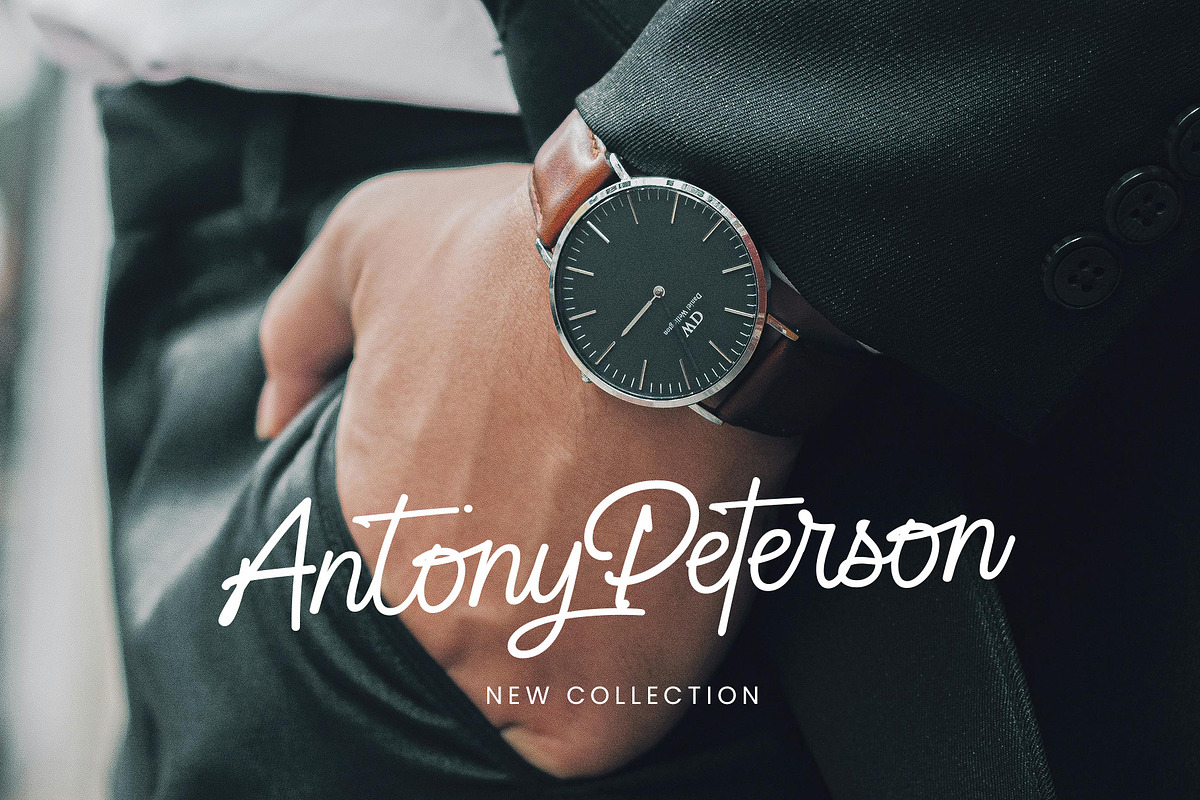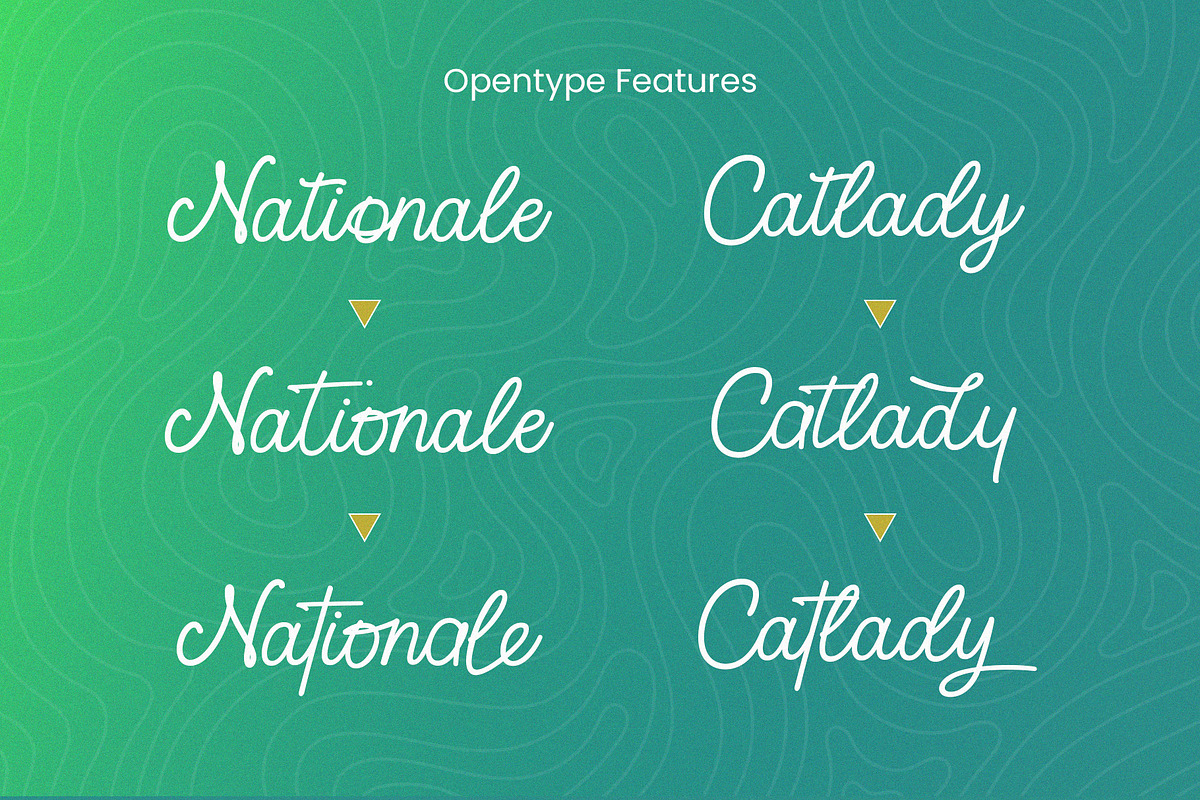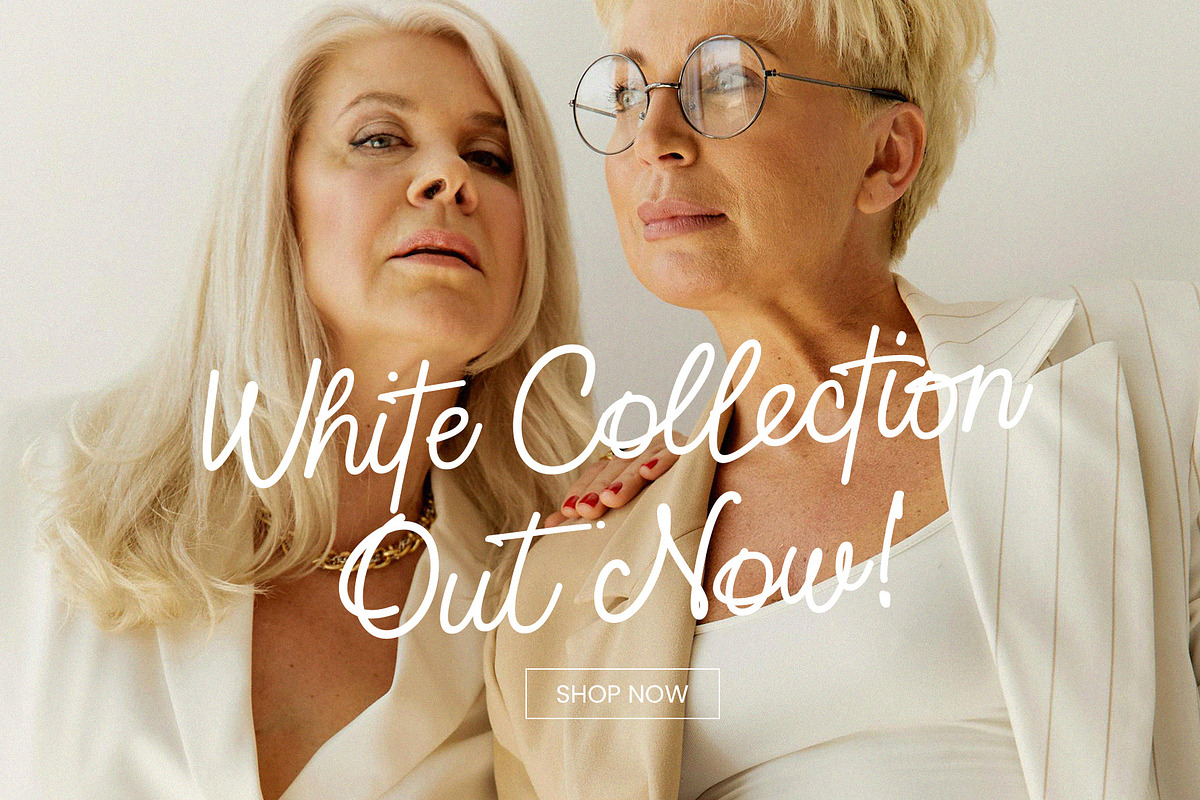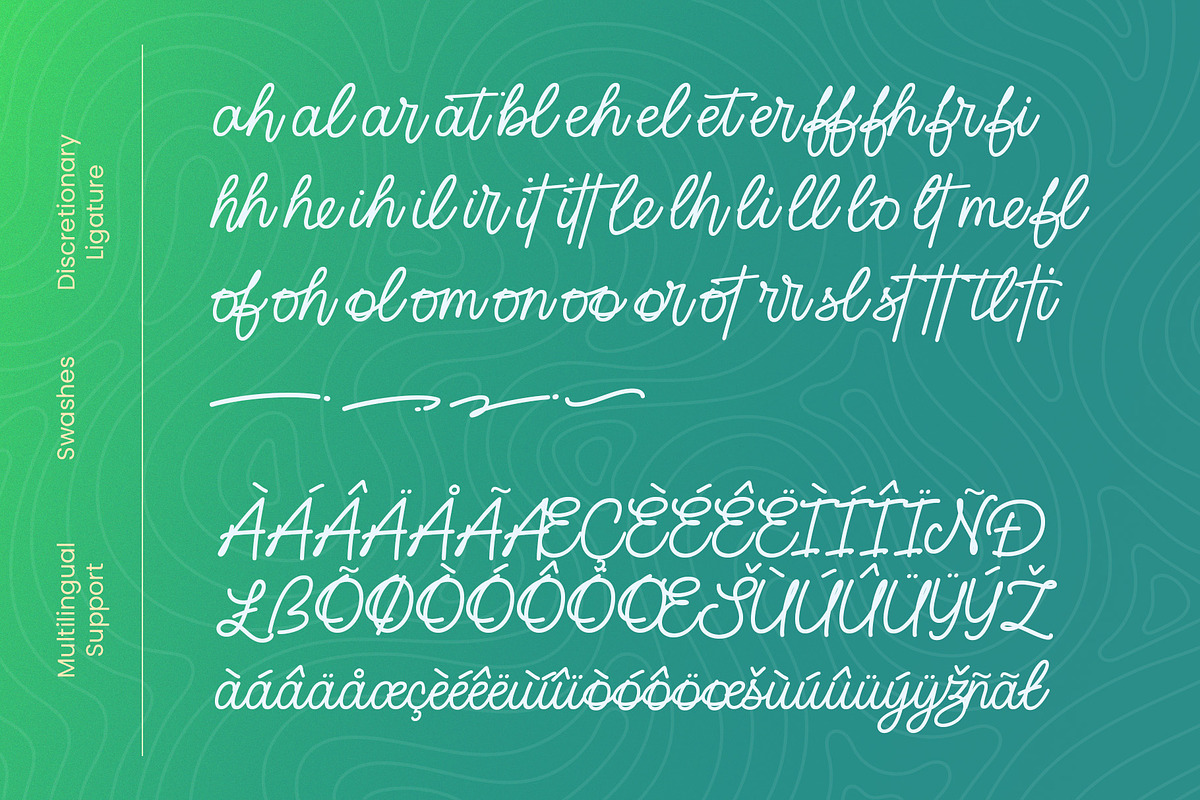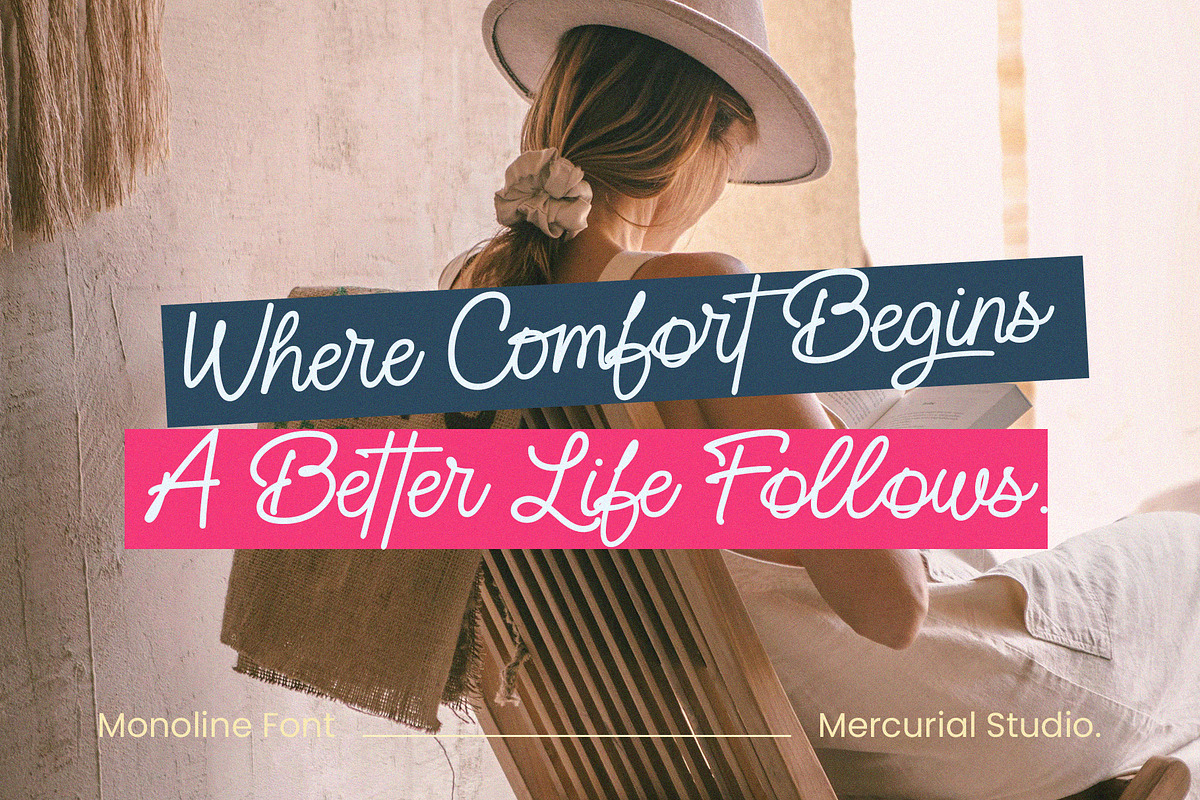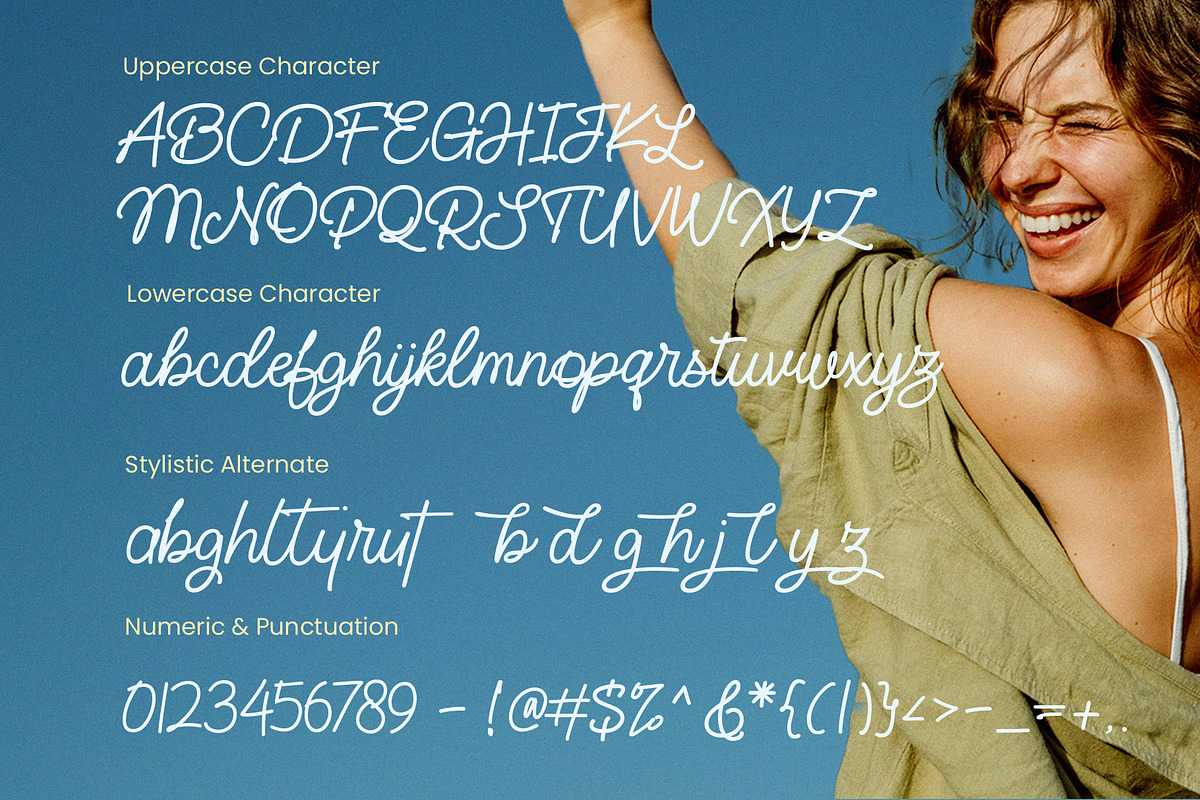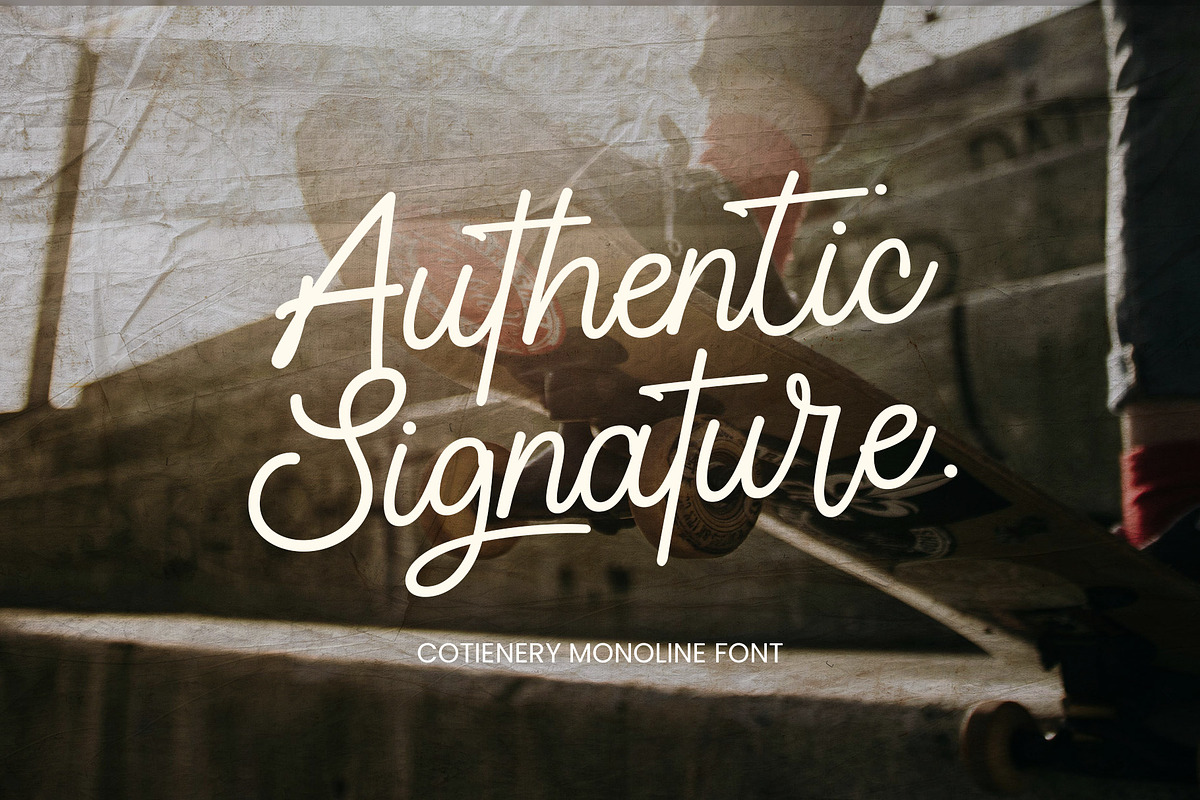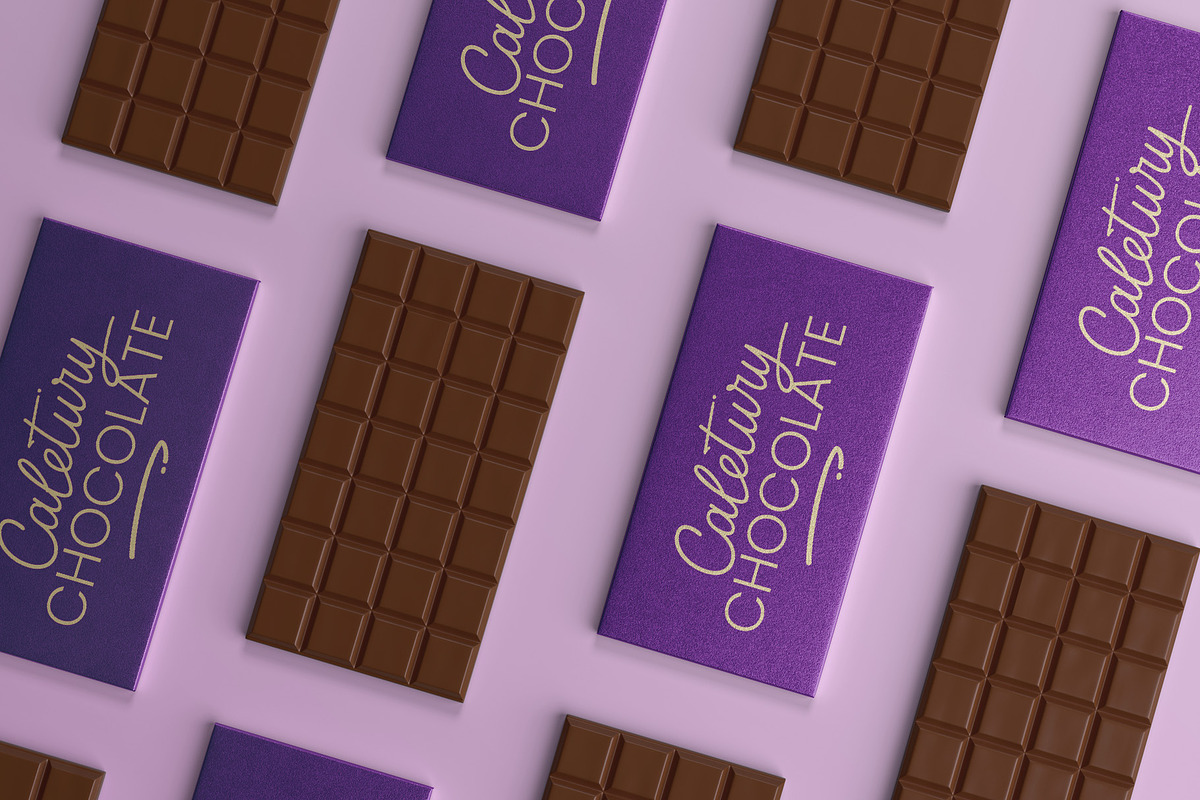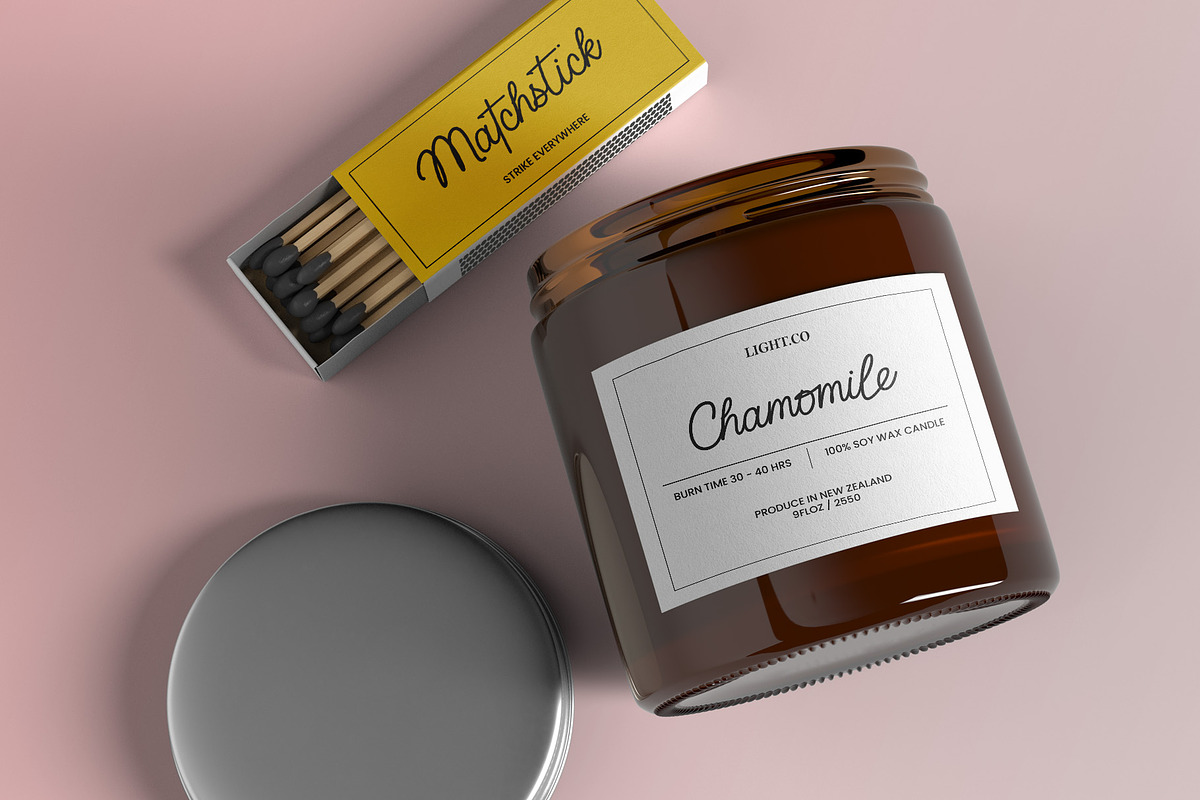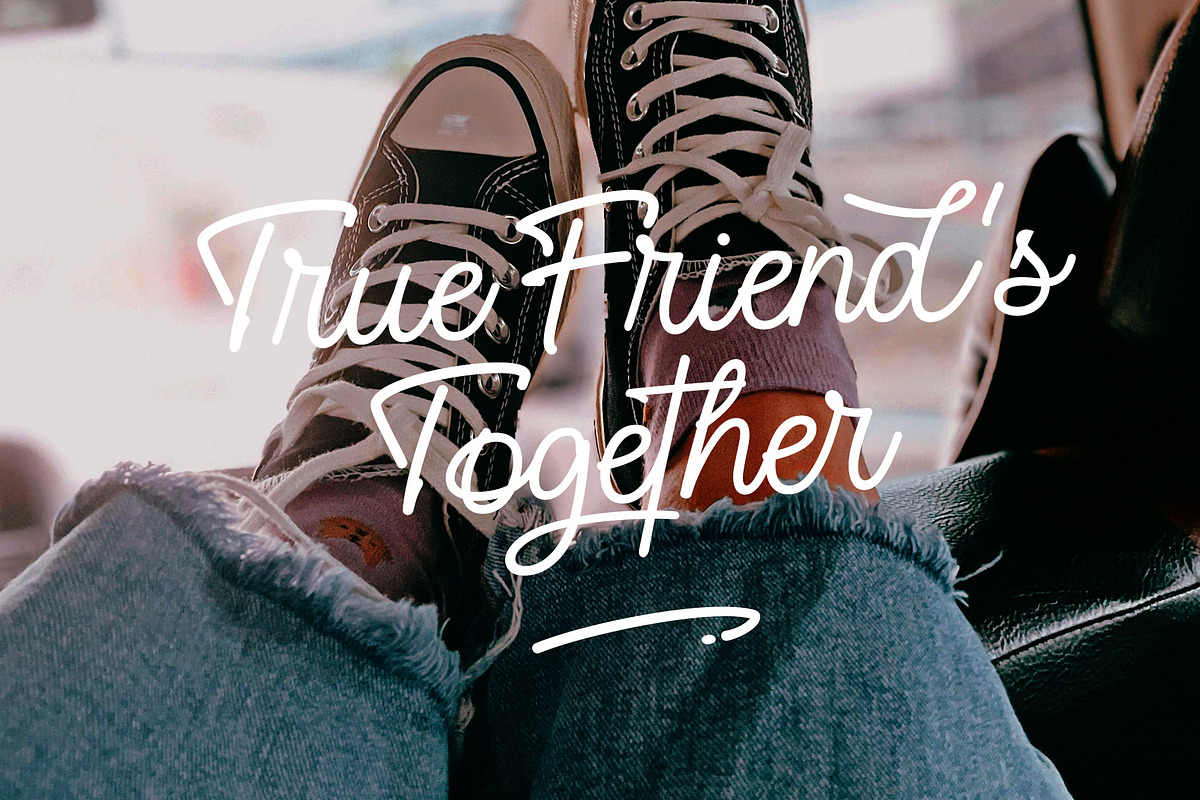
Cotieleny
Hello everyone, I would like to introduce Cotieleny a modern and stylish monoline handwritten font.
Cotieleny can be used for a variety of projects such as branding, labels, photography, invitations, stationery, wedding designs, social media posts, advertising, product packaging, product design, and more.